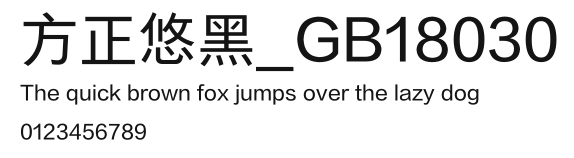
方正悠黑_GB18030 Preview
• Font Name: 方正悠黑_GB18030
• Font ID: Founder:方正悠黑_GB18030 Regular
• Full Font Name: 方正悠黑_GB18030
• PostScript Name: FZYOUHGB18030--GB1-4
• Character Count: 28610
About 方正悠黑_GB18030.ttf
方正悠黑_GB18030.ttf is a modern, elegant sans-serif font designed for ultimate readability and visual harmony. Perfect for branding, headlines, web design, and print materials.